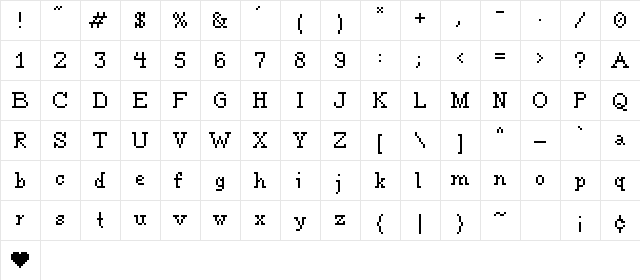
TourDeForce Medium
TourDeForce brings high-energy athletic personality to the page — its confident, muscular forms are built for impact.
A natural choice for gym brands, fantasy sports, jersey lettering, and action-driven headlines.
Font Pairing: Use alongside a condensed or geometric sans for supporting copy — keep the pairing bold, functional, and free of ornament.
Pro Tip: Use TourDeForce in all-caps headlines where its athletic energy can fully express itself. Pair with a solid, simple sans for supporting text.